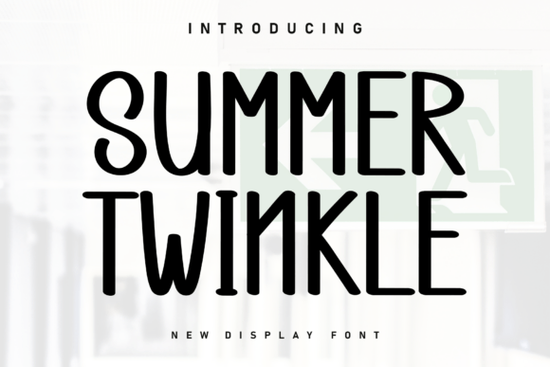
Summer Twinkle Font is a charming handwritten typeface that brings a warm, whimsical feel to any design. Its delicate, flowing characters create a sense of lightness and charm, making it ideal for projects that need a personal touch. Whether you're designing greeting cards, social media posts, or branding materials, this font adds a soft, inviting presence that stands out without being overwhelming.
If you're looking for fonts that bring a handmade feel to your work, Summer Twinkle fits perfectly in the handmade-aesthetical-font-display-fonts category. It’s especially popular among designers, crafters, and small businesses who want to add a unique, personal flair to their creative projects. The font’s subtle variations in stroke weight and spacing give it an authentic, handcrafted look that digital fonts often lack.
One of the standout features of Summer Twinkle is its ability to convey a sense of warmth and intimacy. The characters seem to dance along the baseline, creating a visual rhythm that feels natural and easy on the eyes. This makes it a great choice for anything from wedding invitations to seasonal marketing materials. Its readability is also impressive, even at smaller sizes, which means it can be used in a wide range of applications.
How to Use Summer Twinkle Font in Your Projects
When using Summer Twinkle, consider the context of your design. For example, if you’re working on a logo or brand identity, the font can add a friendly, approachable vibe. If you're creating social media graphics, it can help make your content feel more personal and engaging. Pairing it with simpler fonts can also help balance the overall look, ensuring your message remains clear and professional.
Why Choose Summer Twinkle?
Summer Twinkle Font is more than just a pretty design it’s a tool that helps you express creativity in a meaningful way. Its soft, flowing style makes it versatile enough for both casual and formal projects. It’s also easy to use, with a wide range of glyphs and support for multiple languages, making it accessible to a global audience.
Whether you're a designer, a crafter, or someone who loves to experiment with typography, this font offers a fresh and elegant option for your next project. It’s especially useful for print-on-demand sellers who want to offer unique, customizable designs that stand out in a competitive market.
Final Thoughts
Summer Twinkle Font is a beautiful addition to any designer’s toolkit. Its elegant, handwritten style brings a sense of warmth and personality to your work, making it ideal for a wide range of creative projects. By choosing the right font, you can enhance the visual appeal of your designs while maintaining clarity and professionalism.
Take a moment to explore how this font can fit into your workflow. Try using it in different contexts to see how it transforms your designs. With its versatility and charm, Summer Twinkle is sure to become a favorite in your collection.
Quick Checklist:
- Try pairing Summer Twinkle with a clean sans-serif font for contrast
- Use it in social media graphics, greeting cards, or branding materials